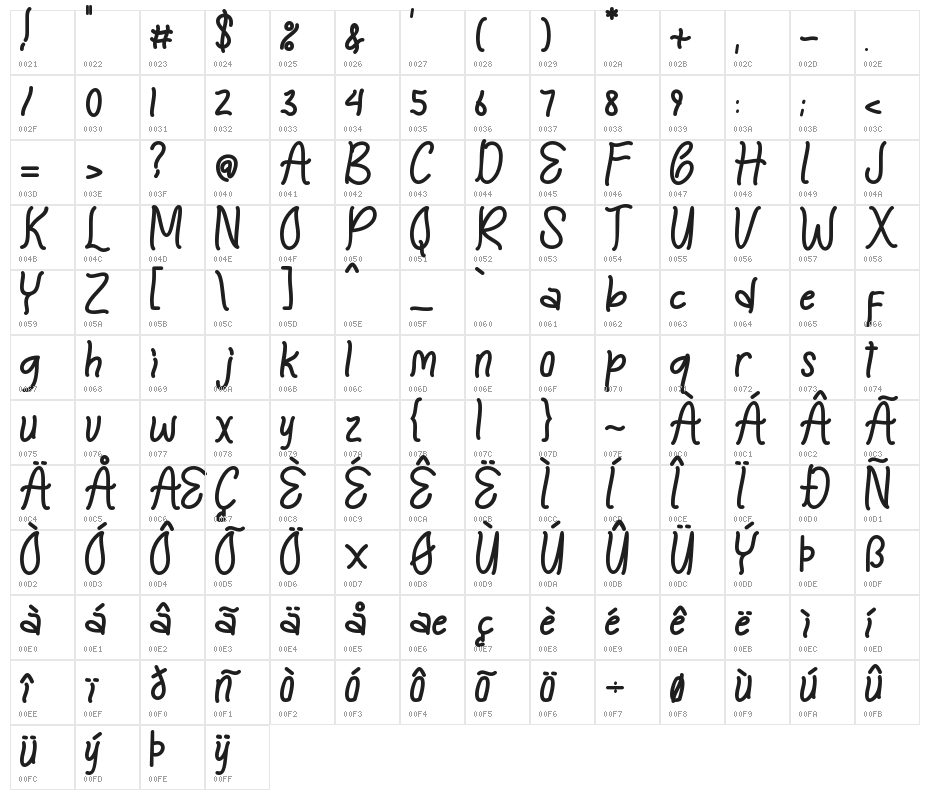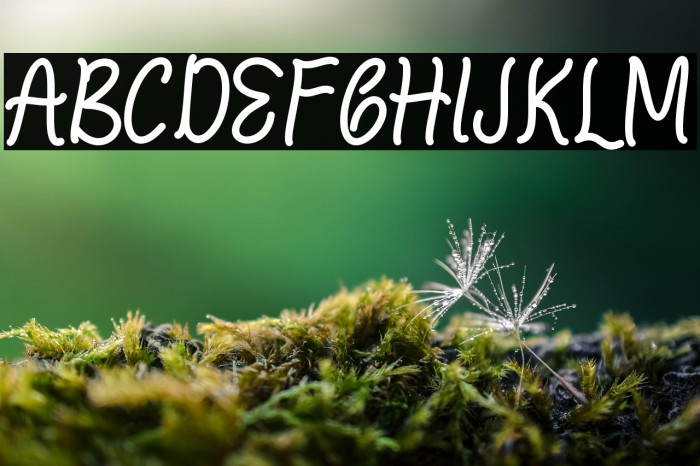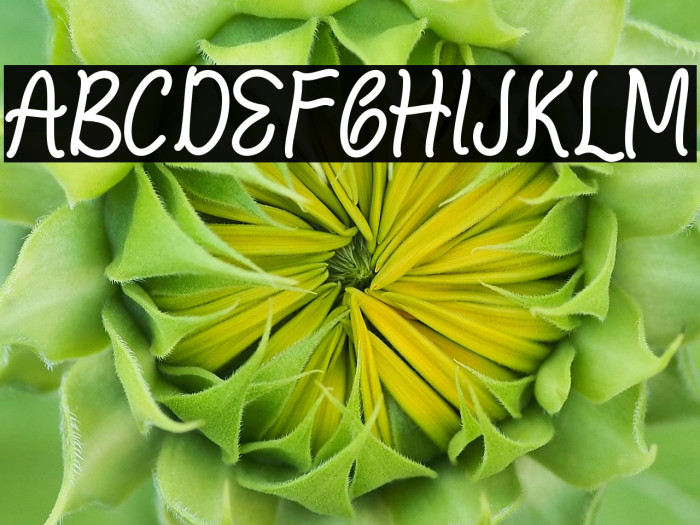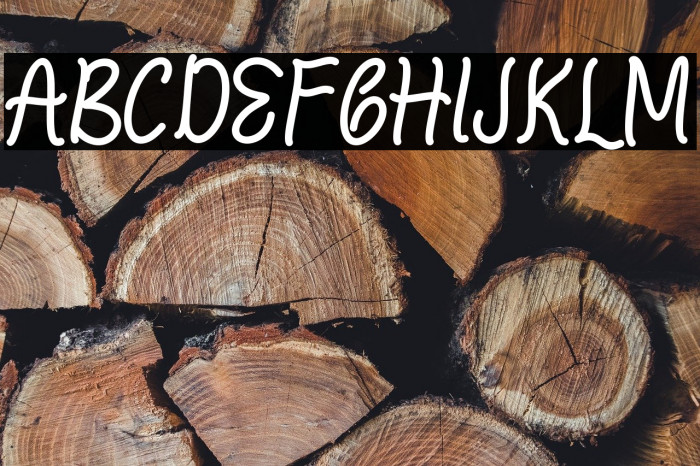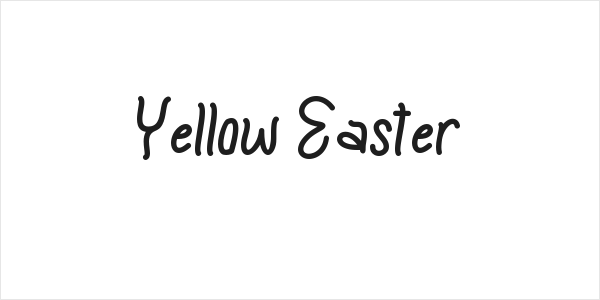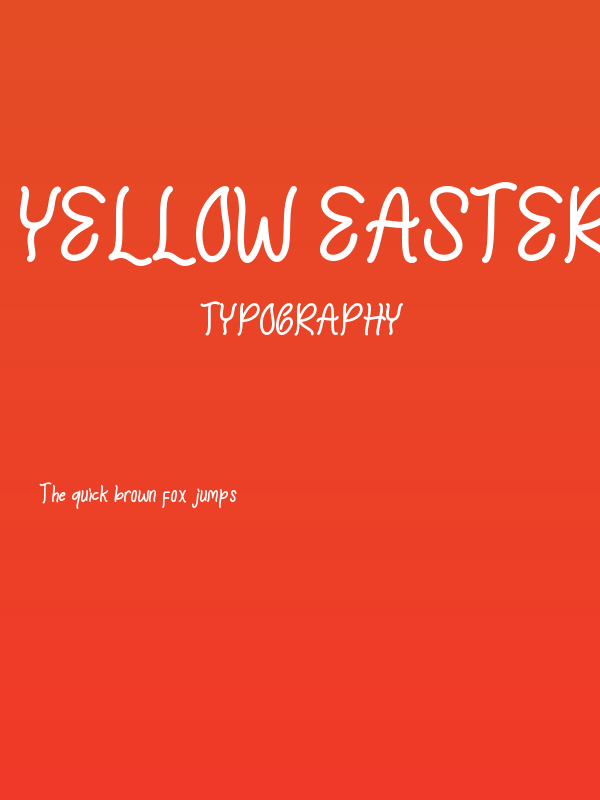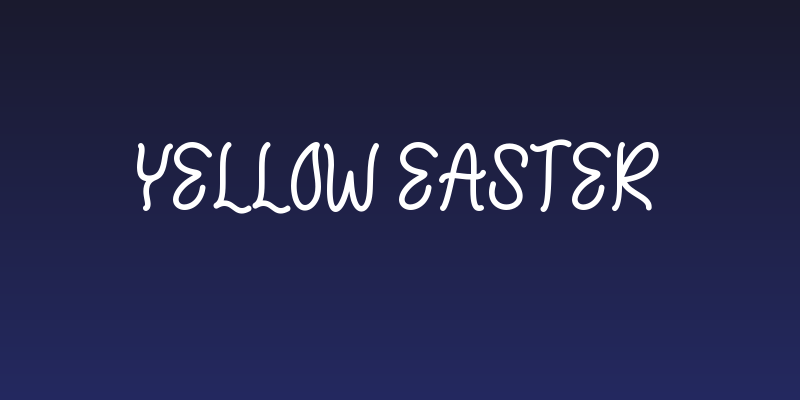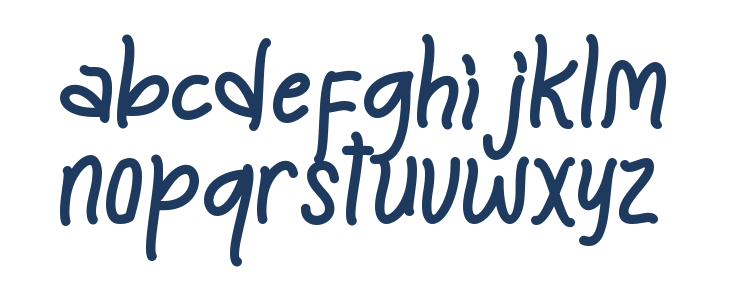
Yellow Easter Font
Yellow Easter Description
This font features a playful and casual handwritten style, characterized by its fluid and organic letterforms. The uppercase and lowercase letters maintain a consistent flow, with slightly exaggerated curves and loops that add a whimsical touch. The numbers and special characters follow the same lively aesthetic, making the font versatile for creative projects. Its informal nature makes it ideal for designs that aim to convey a friendly and approachable tone.
| Overall Style | Casual |
| Use Case | Logos, Headlines, Informal text |
| Proposed Projects | Ideal for greeting cards, children's books, playful branding, and social media graphics. |